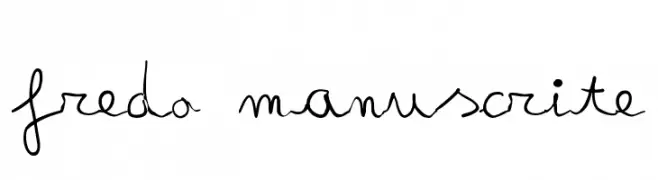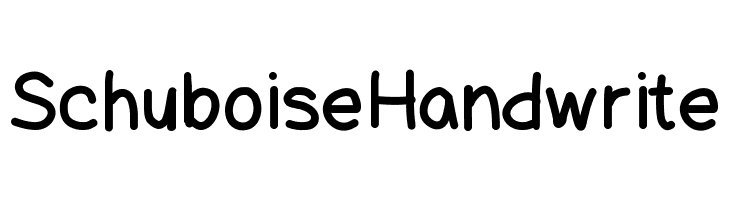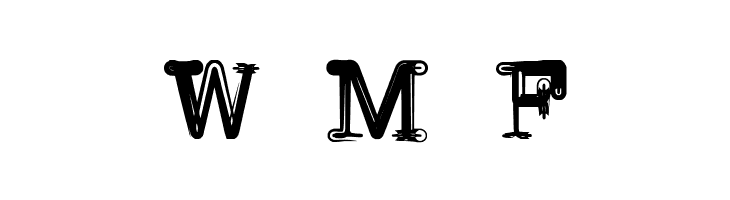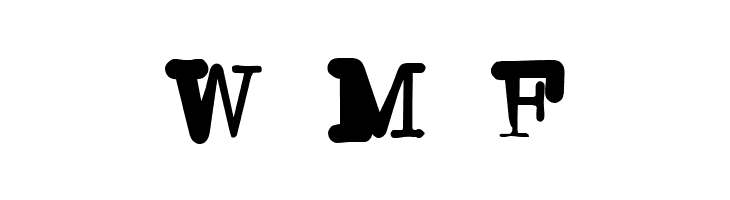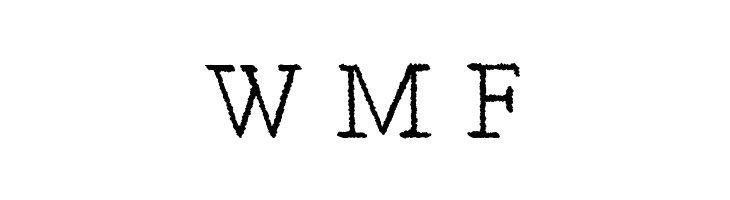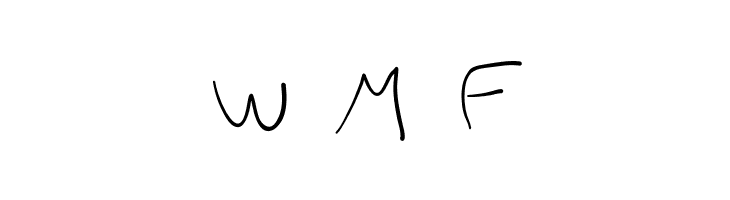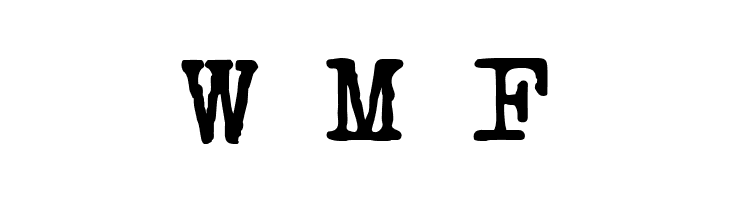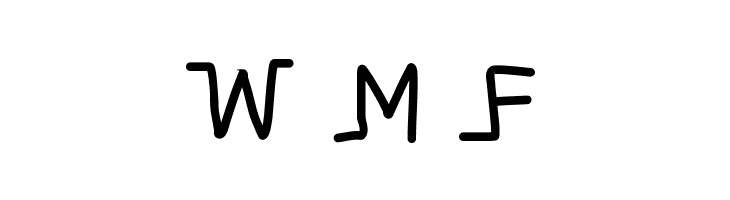
A decorative font with ornate swirls and embellishments for a whimsical look.
A bold, playful font with exaggerated serifs and a whimsical style.
A vintage typewriter-style font with monospaced, textured characters.
A playful, casual handwritten font with fluid strokes.
A playful, casual handwritten font with rounded, consistent strokes.
A bold, vintage typewriter-style slab serif font with a rugged, mechanical feel.
A vintage, typewriter-style slab serif font with a distressed texture.
A fluid and dynamic handwritten font with elongated, slanted letterforms.
A playful handwritten font with a quirky, casual style.
A vintage typewriter-style font with bold, irregular characters and a distressed texture.